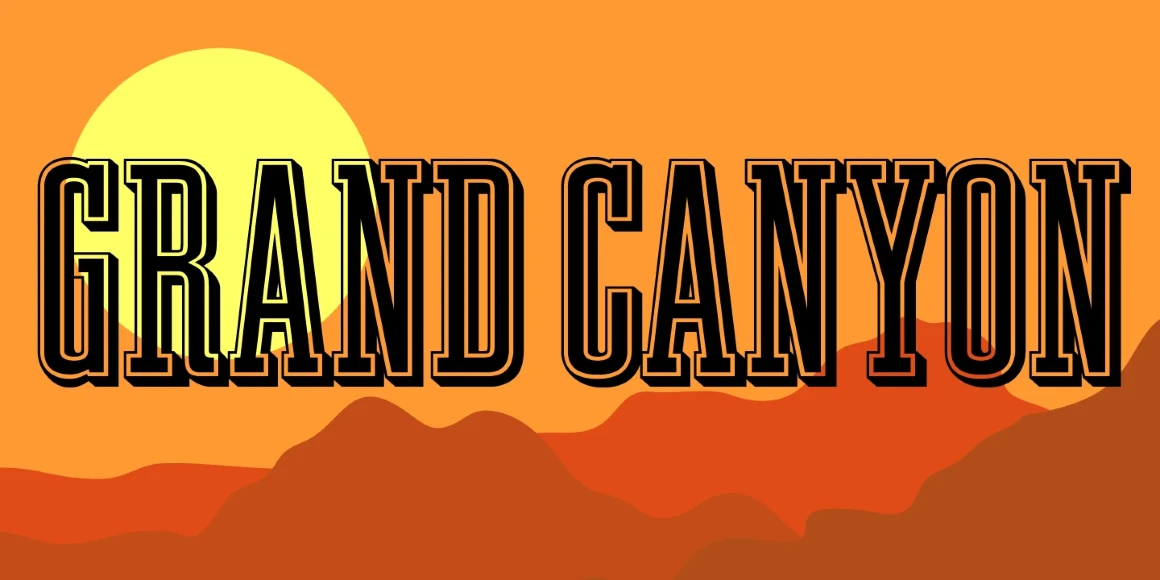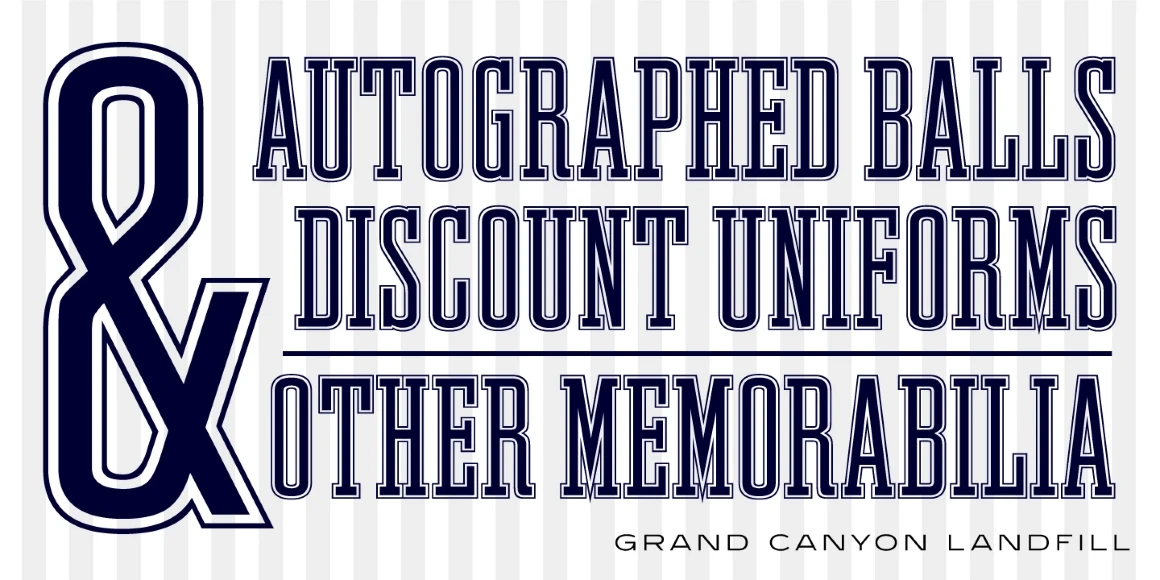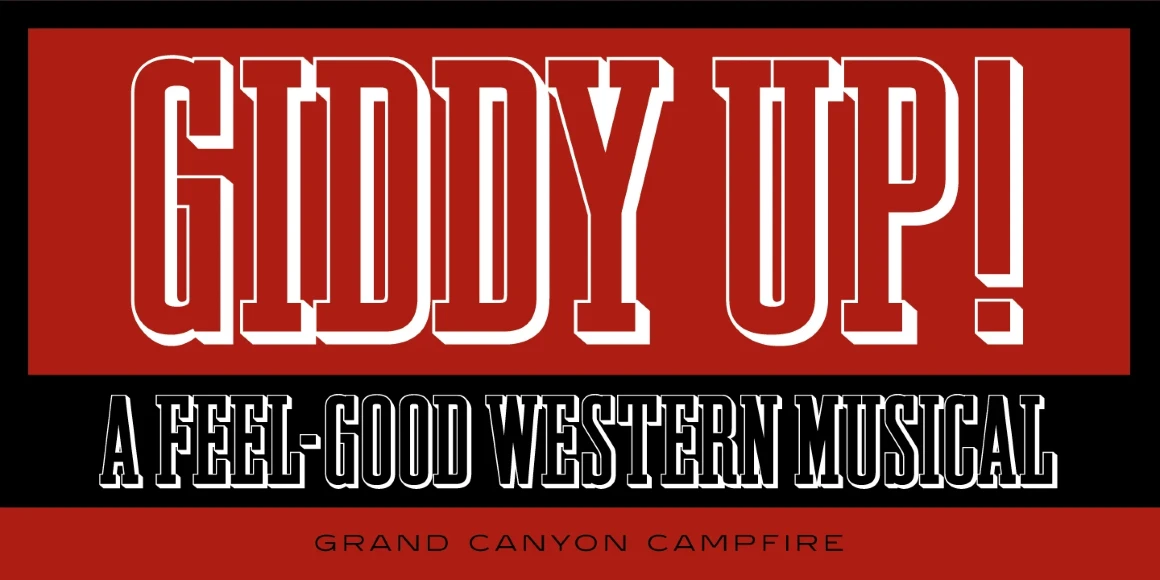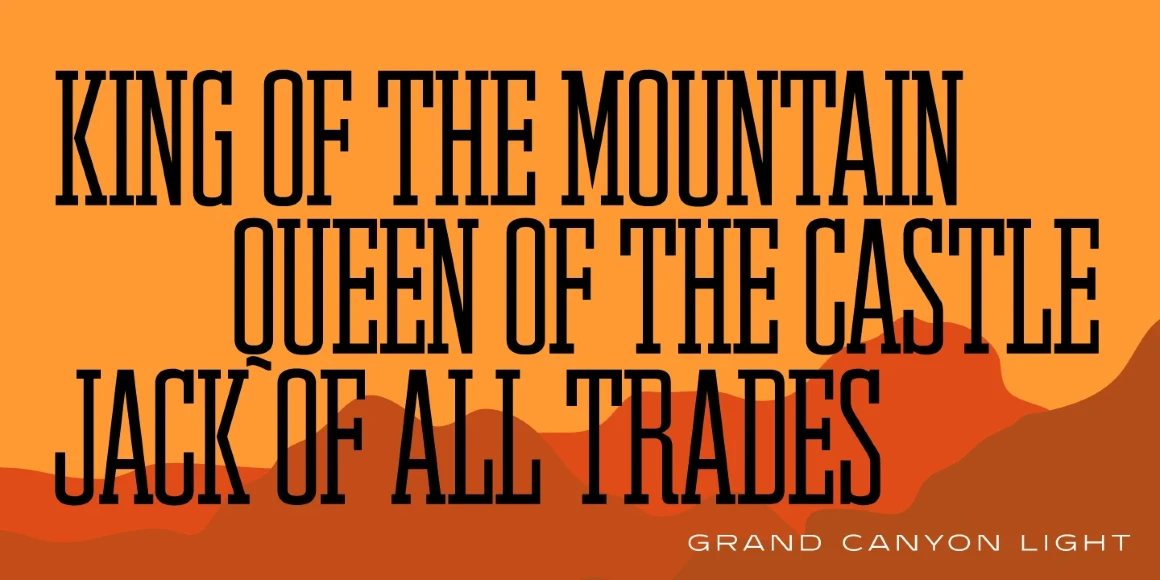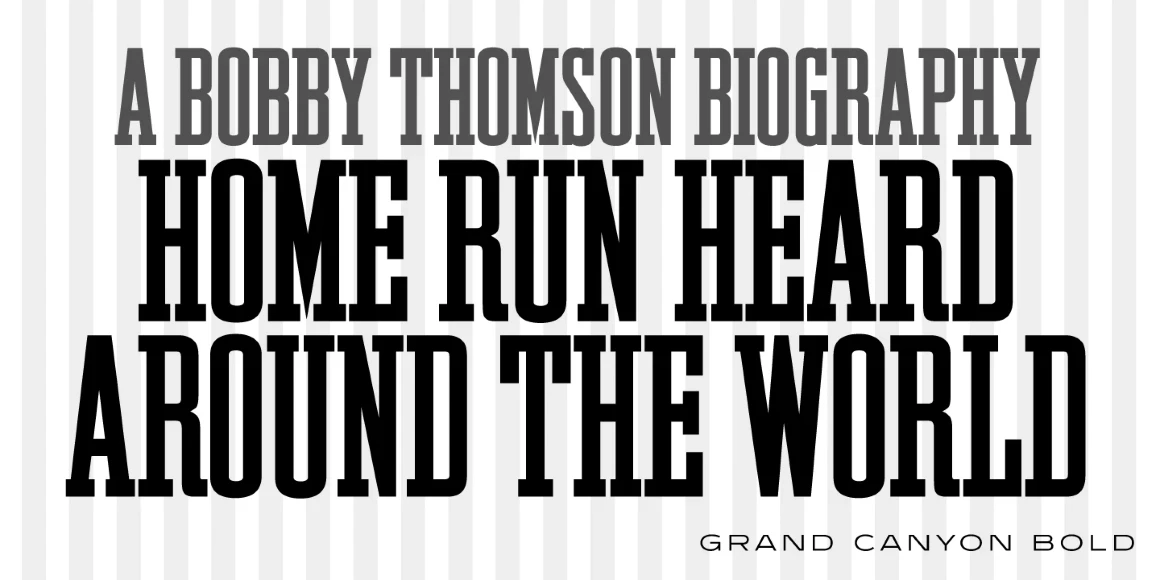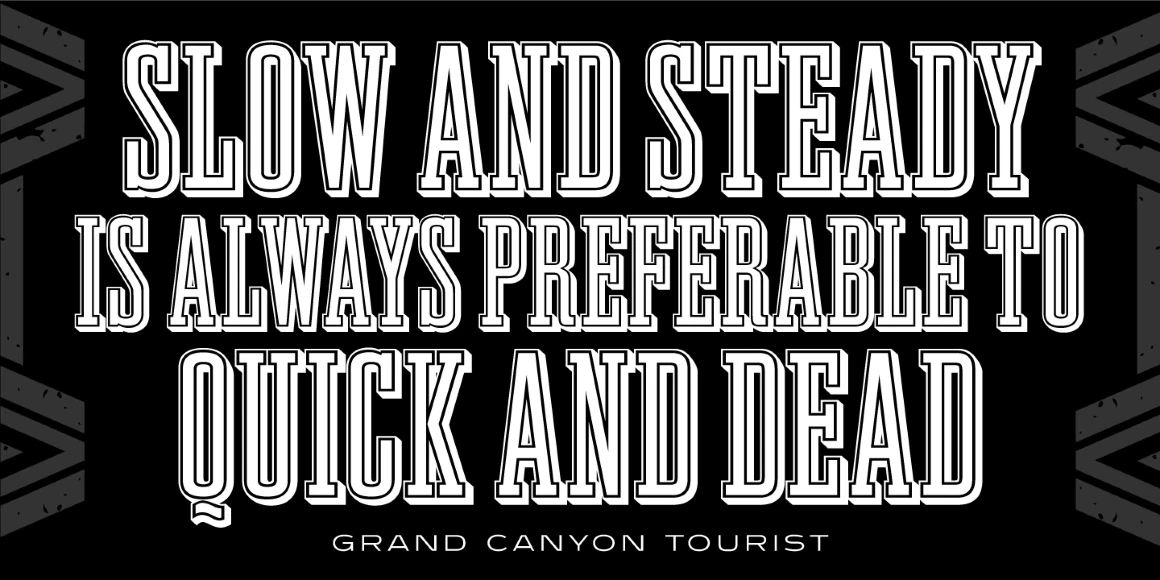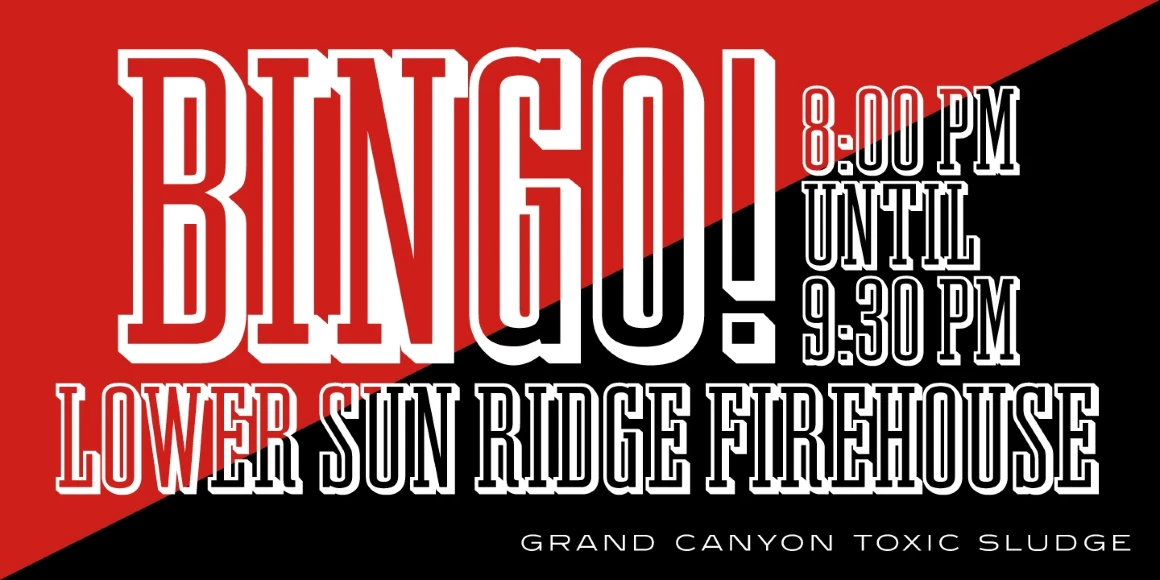
Grand Canyon
Grand Canyon Light
Grand Canyon Campfire
Grand Canyon LandFill
Grand Canyon Tourist
Grand Canyon Toxic Sludge
Grand Canyon Whitewater
Grand Canyon Medium
Grand Canyon Bold
Grand Canyon is a compressed Egyptian serif font family, and was created by Steve Jackaman (ITF) in 1998. It is an original design based on early wood type specimens, and has branched off into numerous variants over the years. Much like its namesake, Grand Canyon is built for any project that is looking for some grandiosity and ruggedness. Each weight is named after things you might find in the Arizona wilderness, including a little radioactivity. Its sister family, Los Alamos, shares the boldness of this all-caps font.